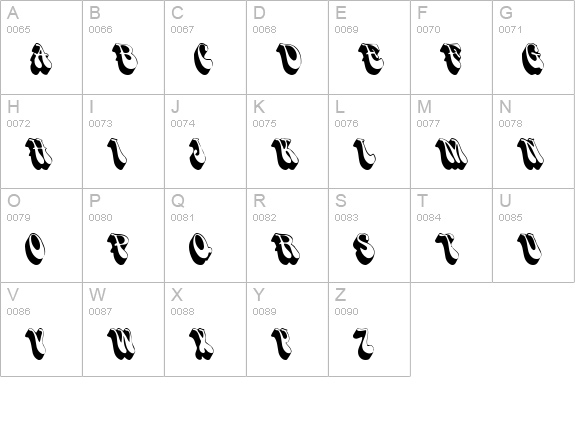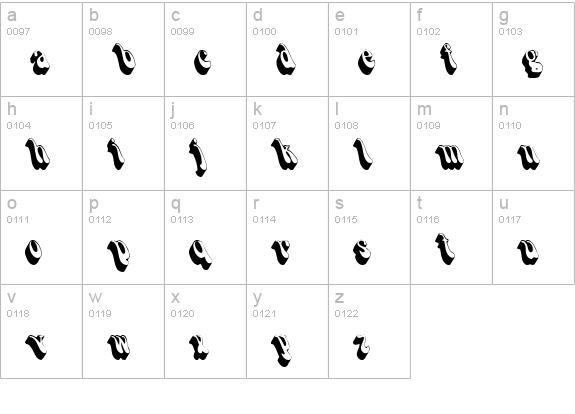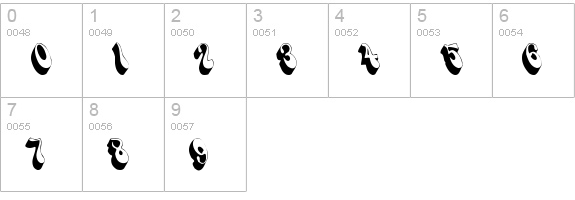
Smoke Font Details
Introducing the captivating and mesmerizing Smoke font – a stunning typeface that will leave a lasting impression on any design project. With its unique and intricate smoke-like swirls, this font effortlessly adds a touch of elegance and sophistication to any text. Crafted with utmost precision and attention to detail, Smoke font is the perfect choice for those seeking to create a sense of intrigue and mystery in their designs. Whether you're working on a logo, poster, or website, this versatile font is sure to elevate your creations to new heights. What makes Smoke font even more remarkable is that it is completely free! Yes, you heard it right. This exceptional font is freely available to download at FontsMarket.com. Now, you can effortlessly enhance your designs without breaking the bank. With Smoke font, the possibilities are truly endless. Its seamless blend of modernity and timeless appeal makes it suitable for a wide range of design projects. Whether you're aiming for a bold and edgy look or a subtle and refined aesthetic, this font has got you covered. Embrace the captivating allure of Smoke font and let your imagination run wild. Download it for free today at FontsMarket.com and embark on a journey of creativity like never before. Get ready to make a statement with this truly remarkable and captivating font.